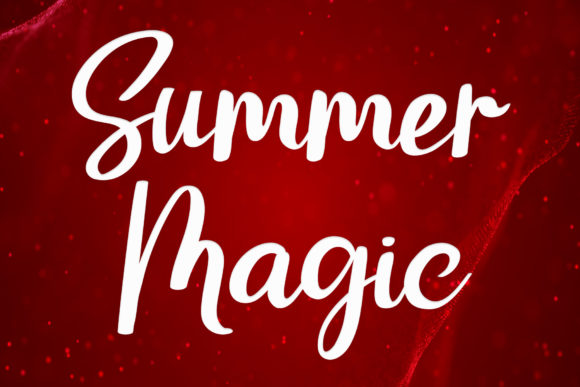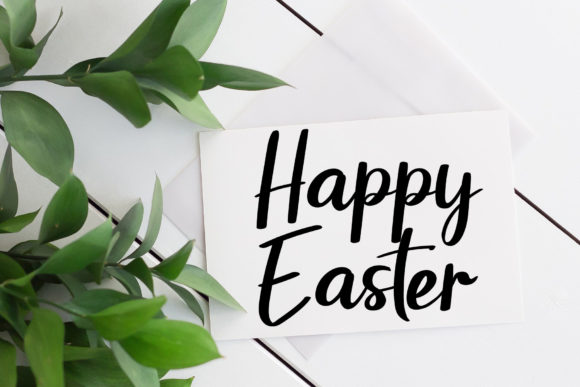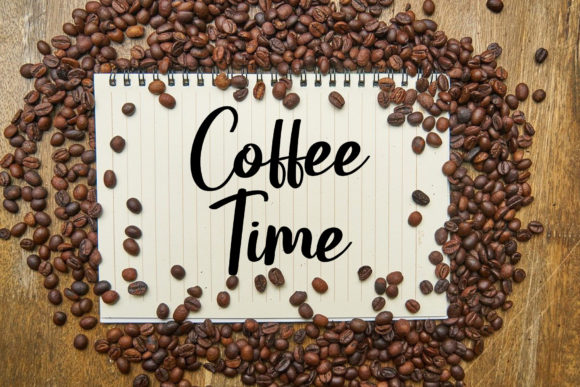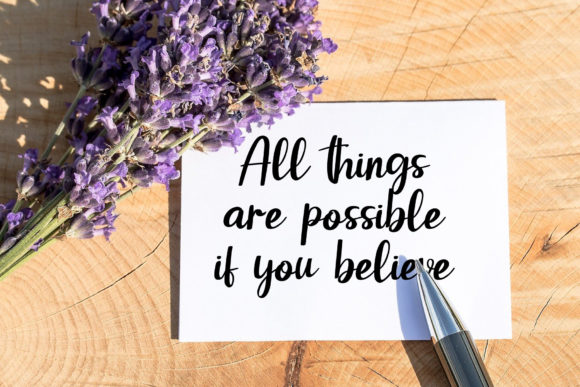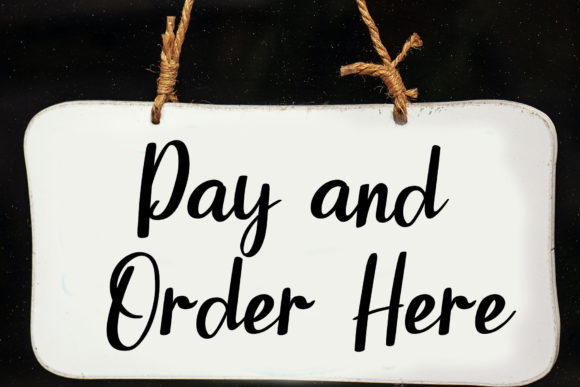
Summer Magic Font
About Summer Magic Font
Summer Magic is a chic and refined script font that exudes sophistication and elegance. With its stylish alternates and ligatures, this font is the perfect match for a wide range of projects, adding a touch of class and charm to your designs.
The flowing and graceful letterforms of Summer Magic create a harmonious and balanced appearance, capturing the essence of beauty and sophistication. The curves and flourishes of the script lend an air of elegance and refinement, making it ideal for upscale branding, logo design, wedding invitations, and other high-end projects.
One of the standout features of Summer Magic is its stylish alternates and ligatures. These additional glyphs and character variations provide you with creative freedom and allow you to customize your designs. Whether it’s a unique ligature that connects two letters in a visually pleasing way or an alternate form of a letter that adds a distinct touch, these options enhance the versatility and creative possibilities of the font.
With its elegant and timeless style, Summer Magic is well-suited for a variety of design projects. It adds a touch of sophistication to branding materials, including logos, business cards, and packaging. It also works beautifully for wedding stationery, such as invitations, save-the-dates, and place cards, where the combination of elegance and script handwriting creates a romantic and luxurious feel.
In addition to branding and wedding designs, Summer Magic can elevate editorial layouts, advertisements, fashion magazines, and any project that requires a touch of refinement and elegance. Its versatility allows it to adapt to different design aesthetics, from classic and traditional to modern and minimalist.
Whether you’re creating digital or print designs, Summer Magic delivers a sense of sophistication and style that enhances the overall visual impact. It is a font that effortlessly adds elegance and grace to your projects, leaving a lasting impression on your audience.
In summary, Summer Magic is a chic and refined script font with stylish alternates and ligatures. Its elegant letterforms and sophisticated style make it a perfect choice for a wide range of projects, including branding, wedding invitations, editorial design, and more. With its timeless appeal and creative versatility, Summer Magic brings sophistication and elegance to your designs, making them truly stand out.